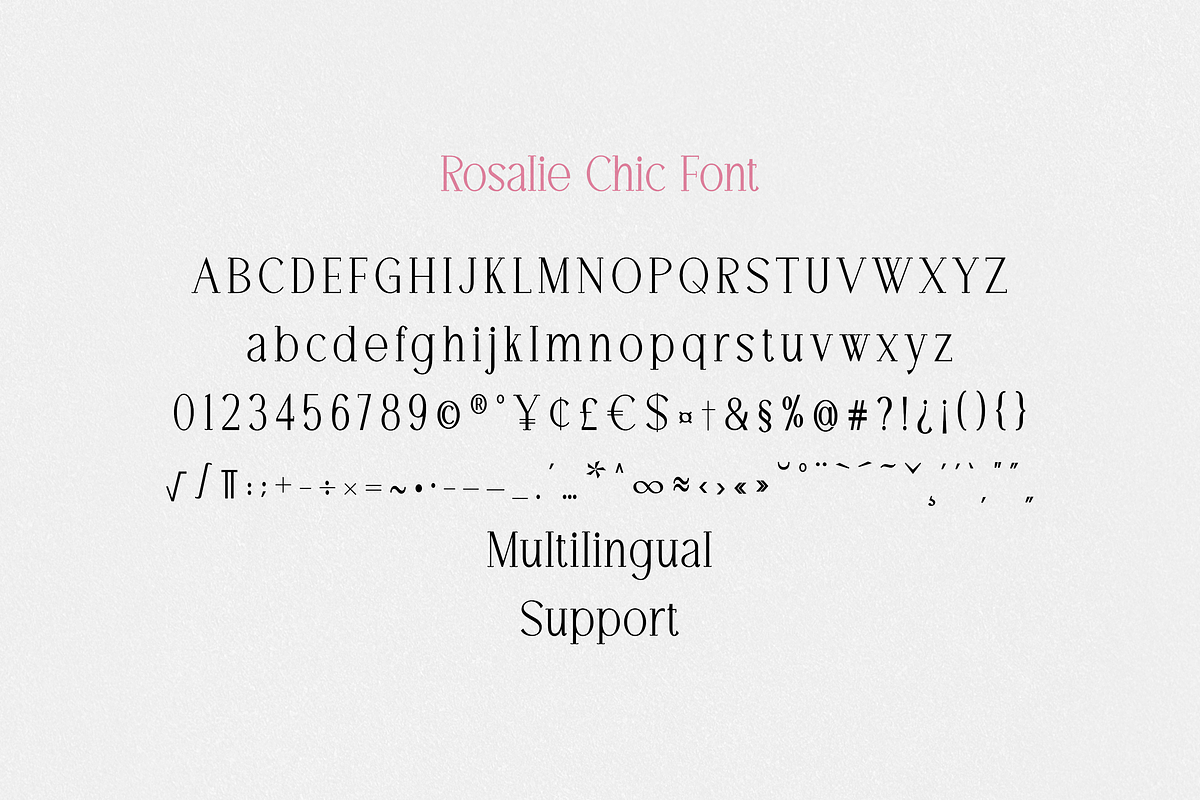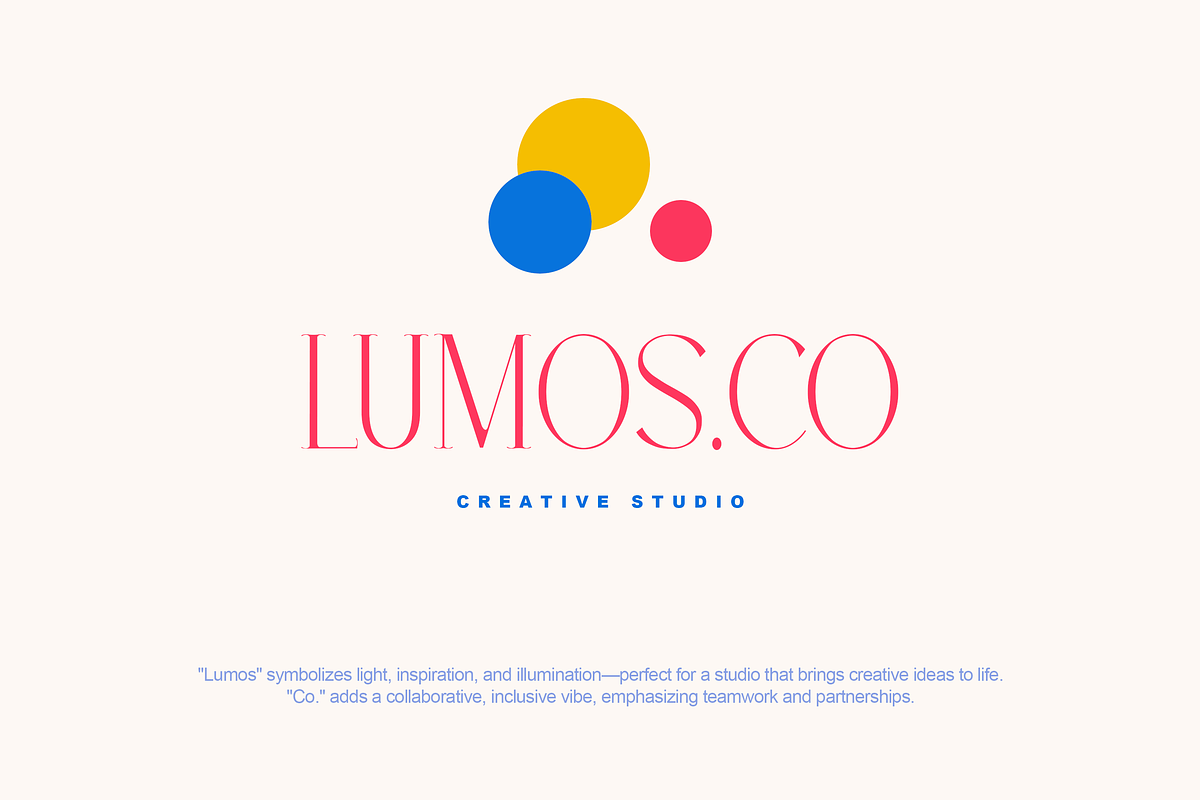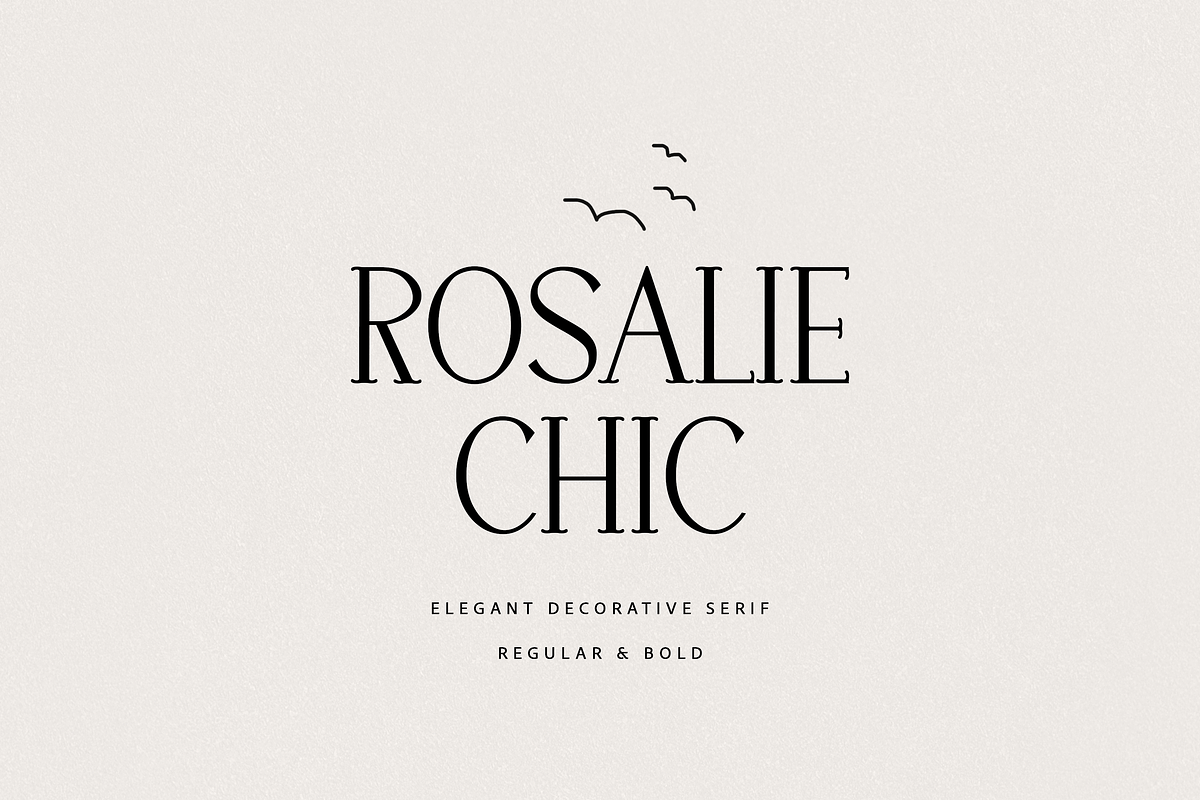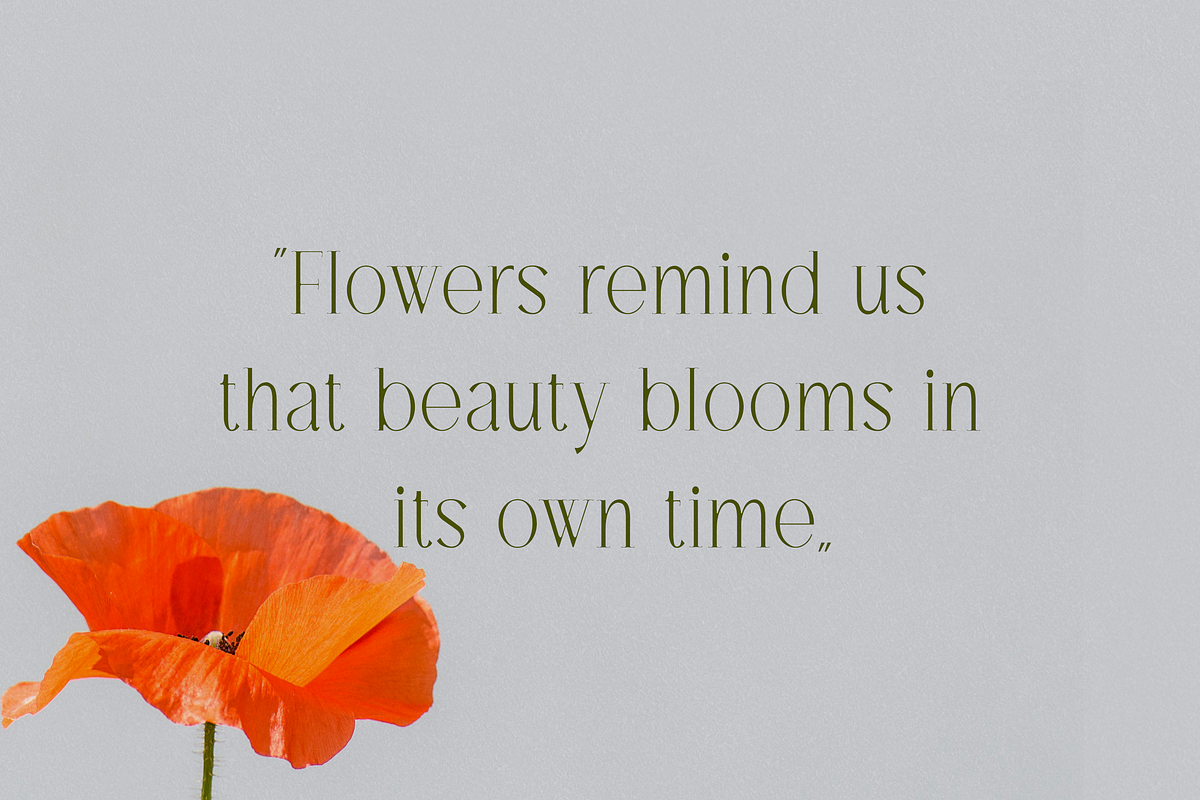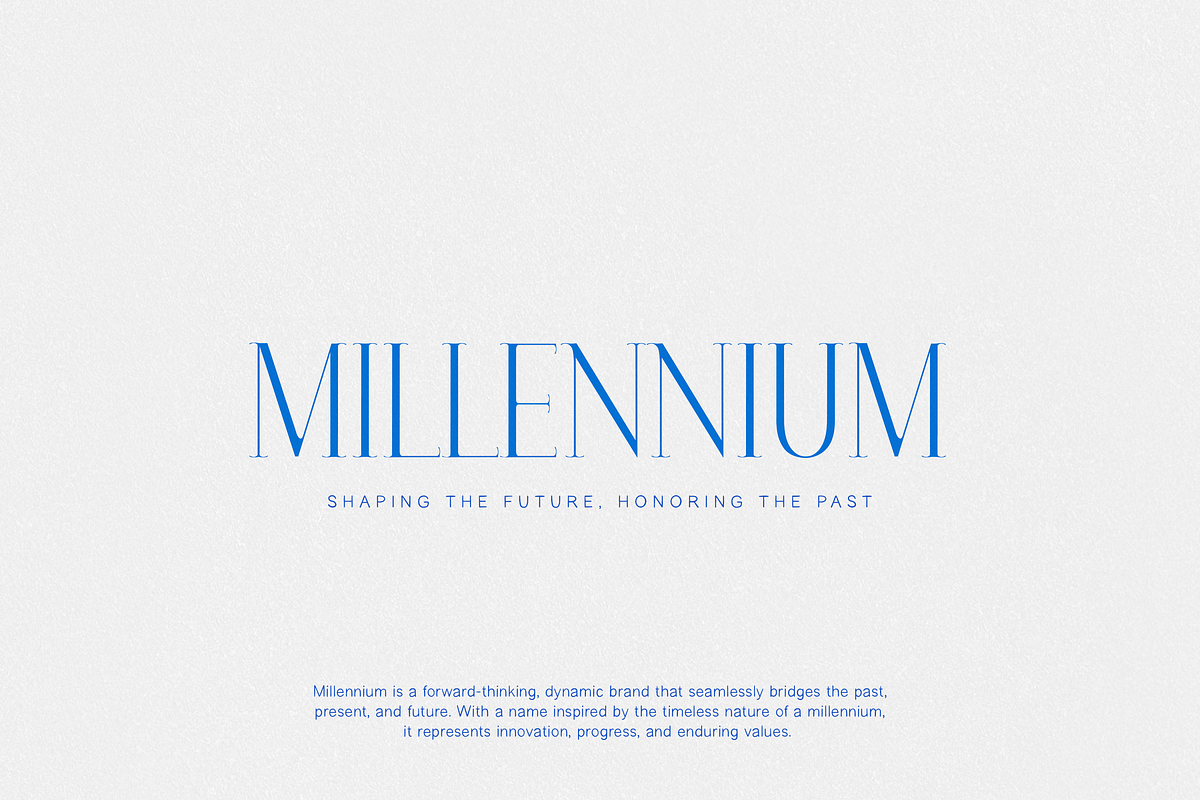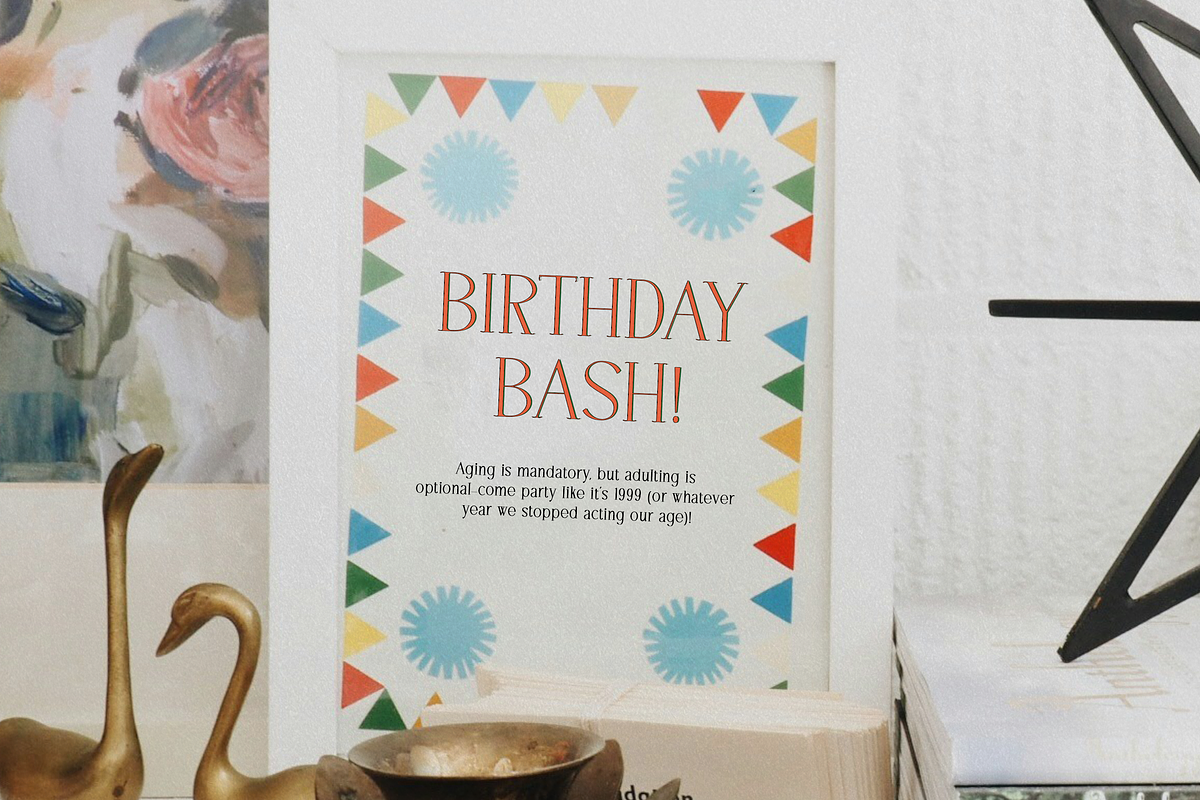
Rosalie Chic Serif
Rosalie Chic is an elegant decorative serif font with a refined feminine style and a modern fashion feel. It is designed for branding, logos, packaging, invitations, editorials, social media, beauty projects, boutiques, and stylish print designs.
This font combines graceful letterforms with a clean decorative look, making it perfect for headlines, brand names, packaging design, website headers, and sophisticated visual identities. Rosalie Chic works beautifully for projects that need a chic, romantic, and polished serif touch.